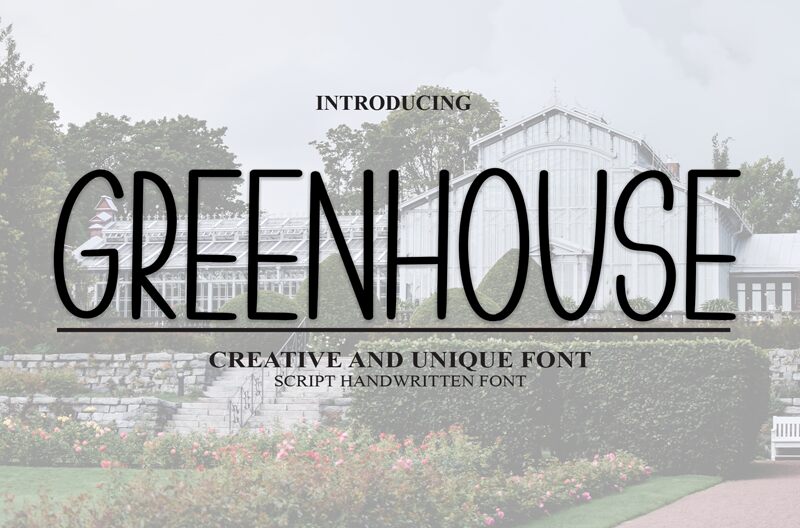
Greenhouse font by creatype designer is an expressive handwritten free font that captures the beauty of a minimalistic and clean design. With an edgy style, aesthetic appeal, and modern appearance, the typeface can be helpful for giving titles a contemporary look and feel. Furthermore, it incorporates an approachable aesthetic that is perfect for versatile use across visual projects of all kinds.
This artistic font fits any size of display for both print and digital use. It can be featured in magazine covers and headings, colorful posters, book or album covers, packaging, and branding projects for fashion items, cosmetics, and perfumes. Use it in logos and combine it with elegant fonts when used in business cards or advertising. While primarily designed to be eye-catching, Greenhouse also performs well in texts and other less visible contexts.
This font retains a classy calligraphic influence while feeling contemporary and fresh. Its versatility makes it ideal for a wide range of creative applications, from letterheads and titles to stationery.